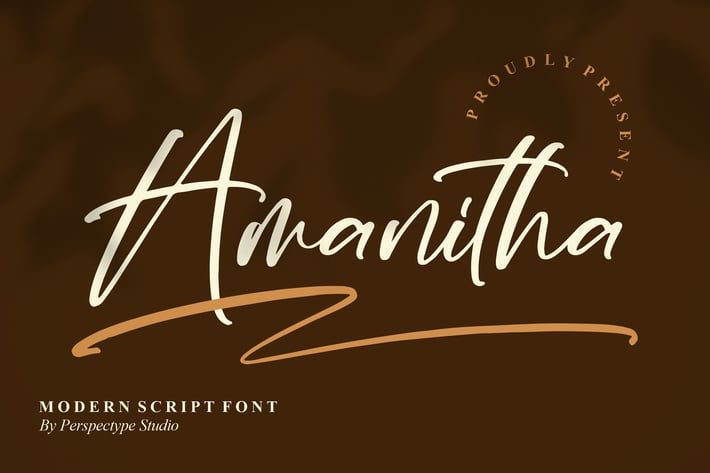
Amanitha Modern Script Font
Amanitha is a modern signature script with silky curves, effortless strokes, and graceful swooshes that feel beautifully handwritten. A relaxed baseline and refined contrast create a chic, contemporary mood—perfect for beauty, fashion, and lifestyle brands that want their words to glide. Use Amanitha to sign off logos, elevate packaging, and turn simple quotes into keepsakes.
+ Uppercase & lowercase with natural handwriting flow
+ OpenType ligatures & alternates for authentic variation
+ Elegant beginning/ending swashes for dramatic signatures
+ Numerals & punctuation, well-spaced kerning for clean results